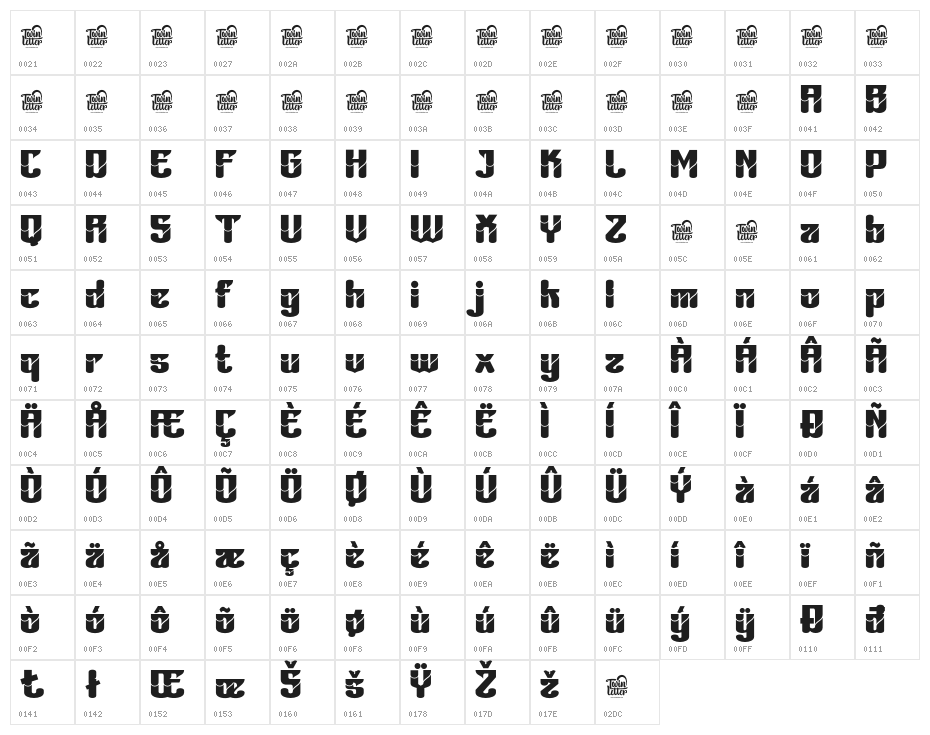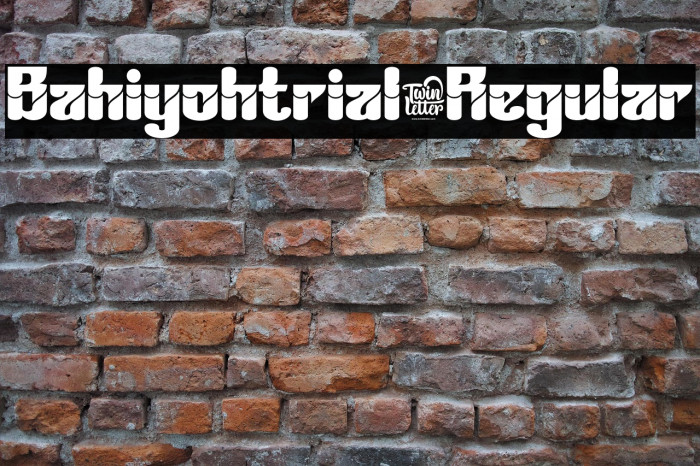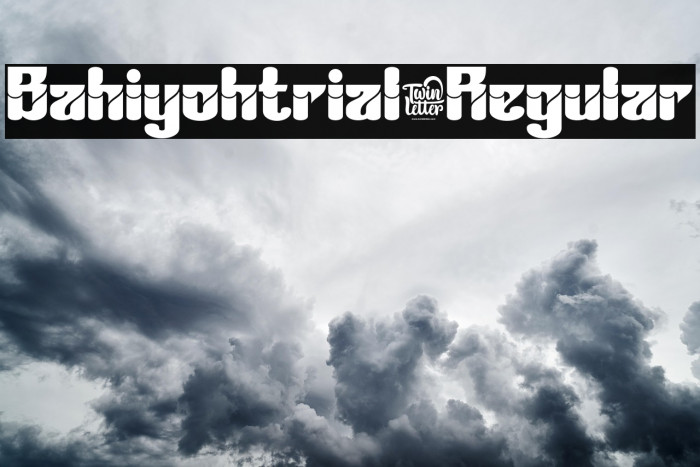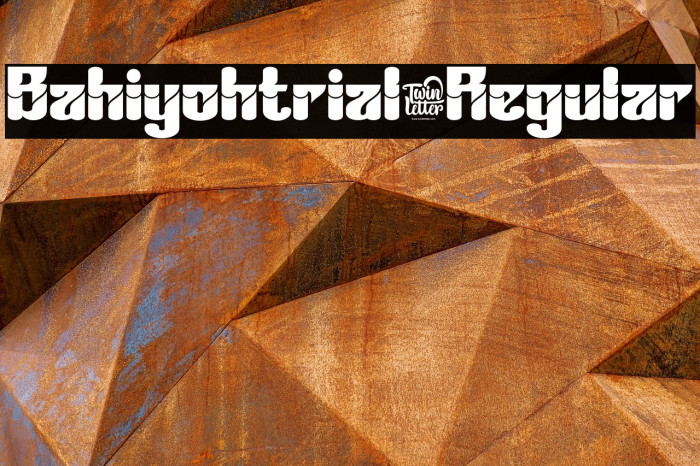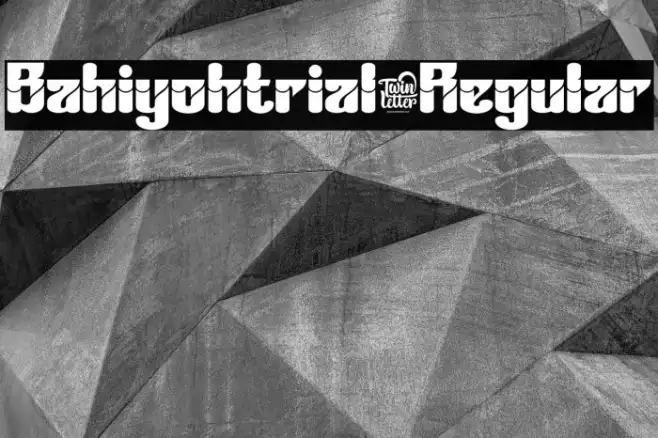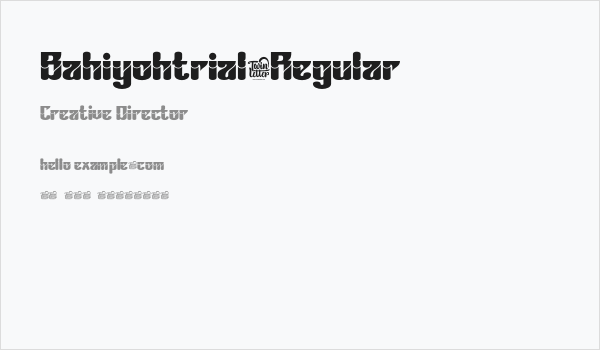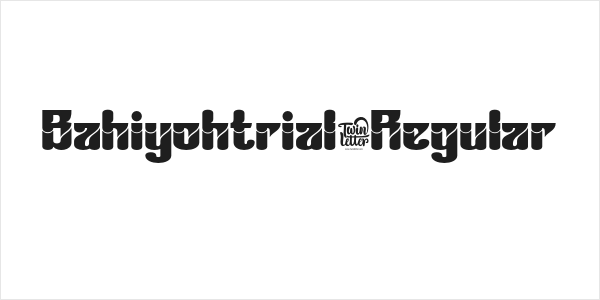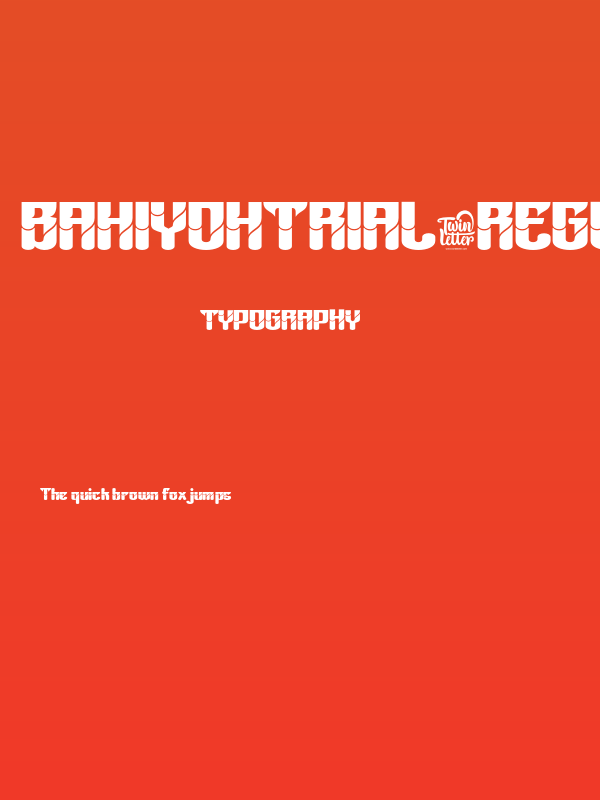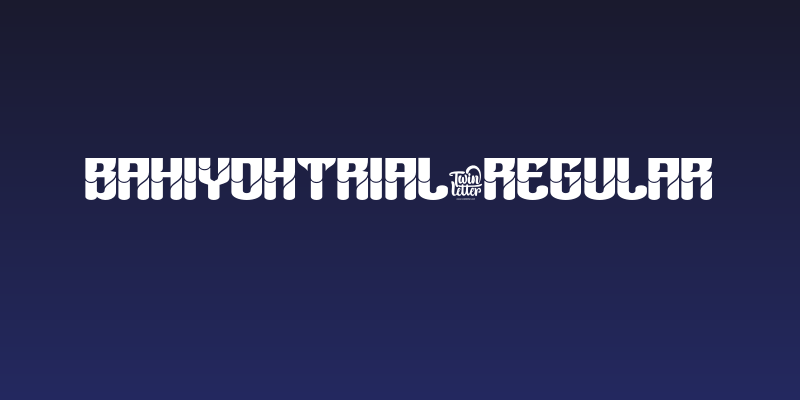
Bahiyohtrial-Regular Font
Bahiyohtrial-Regular Description
This font exhibits a bold and striking design with a modern twist. The characters are crafted with a unique blend of sharp angles and smooth curves, creating a dynamic and eye-catching appearance. The uppercase letters are particularly bold, with a strong presence that commands attention. The lowercase letters maintain the same boldness but with a slightly more playful and rounded approach. The numbers and special characters follow the same stylistic cues, ensuring consistency throughout. This font is perfect for projects that require a strong visual impact, such as branding, posters, and headlines.